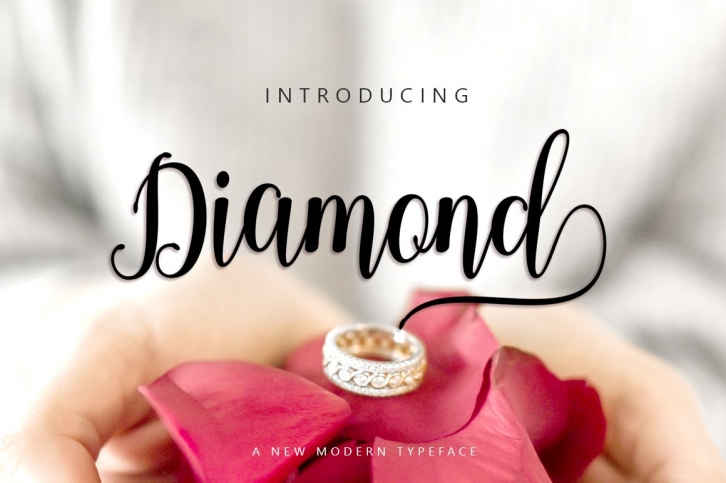
Diamond Script is a beautiful font that was designed by Erick Studio. It's a great choice for designers and creatives who need such a font. It was released on December 22, 2021 and the file size is 21.98 MB. Diamond Script may give a more youthful, expressive and casual look to your project. It is a very beautiful, refined, elegant, and high-quality font.